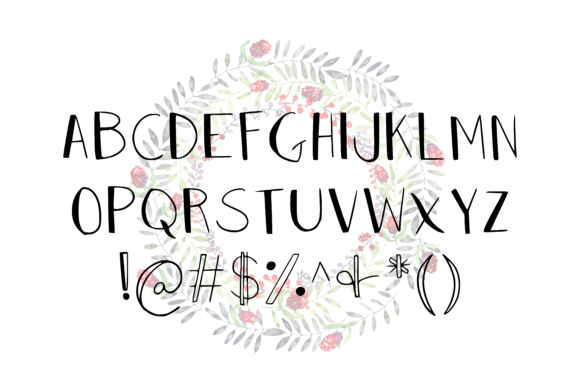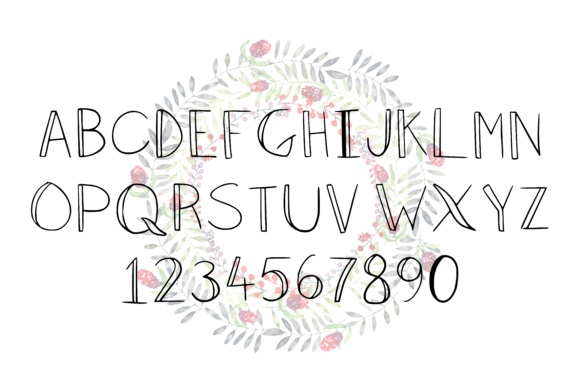
The Birth of a New Design Era: Introducing Archetype Font
Have you ever stared at a blank canvas, surrounded by a sea of possibilities, and suddenly felt an overwhelming urge to create something truly unique? That’s the spark that drives designers to push boundaries and try new things. And for many, that spark is ignited by the discovery of the perfect font – one that sets their work apart and gives it a personality of its own.
Meet Archetype Font, a playful and original typeface that’s been waiting to unleash its creative potential on the world. With its un-updated charm, Archetype Font is the perfect addition to any design project that needs a dash of whimsy and fun. Whether you’re a seasoned pro or just starting out, this font is sure to inspire you to think outside the box and try something new.
For designers, Archetype Font is a valuable tool that offers endless possibilities for creative expression. Its unique style and character make it a standout choice for anyone looking to add some personality to their work. So why settle for a generic font when you can make a statement with Archetype Font?
Key Features of Archetype Font
- Font Family: Archetype comes in 4 font families: Regular, Italic, Bold, and Bold Italic.
- Character Set: The font includes a comprehensive set of characters, including Latin, Greek, Cyrillic, and punctuation marks.
- Resolution: Archetype Font is designed to be scalable and looks great at any resolution, making it perfect for digital use.
- Size: The font is available in a range of sizes, from 8pt to 72pt, and is suitable for use in various applications, including body text, headings, and titles.
- Unique Characteristics: Archetype Font features a unique blend of modern and classic elements, making it a versatile choice for a wide range of design projects.
Archetype Font Review
Overall, I was quite impressed with the Archetype font. It’s a solid choice for any project that requires a modern, elegant feel.
- The font’s bold, sans-serif design is perfect for headings and titles.
- The extensive character set and language support make it a great choice for multilingual projects.
- The font’s scalability is excellent, looking great on both small and large screens.
- Archetype’s unique, modern feel is sure to set your project apart from the crowd.
- The font may be too bold for some projects, potentially overpowering the content.
- The lack of a companion italic font may limit its use in certain situations.
- The font’s unique style may not be to everyone’s taste.
Overall, I’d highly recommend the Archetype font for projects that require a modern, elegant feel. While it may have some limitations, its strengths far outweigh its weaknesses.
Tips for Getting the Most Out of Archetype Font
Use Archetype Font to add a touch of elegance and sophistication to your designs.
Pair Archetype Font with other elegant fonts to create a harmonious design.
Use Archetype Font for:
1. Luxury branding and marketing materials.
2. High-end product packaging and labels.
3. Elegant invitations and event materials.
Alternative Fonts to Archetype Font
Montserrat is a sans-serif font designed for digital use. It’s ideal for headings, titles, and body text where a clean, modern look is desired. Montserrat is more geometric and has a higher x-height compared to Archetype Font, making it perfect for use in digital platforms and social media.
Playfair Display is a luxurious, elegant serif font perfect for high-end branding and design projects. It’s ideal for use in print materials such as business cards, letterheads, and brochures. Compared to Archetype Font, Playfair Display has a more classic and sophisticated look, making it suitable for formal events and high-end products.